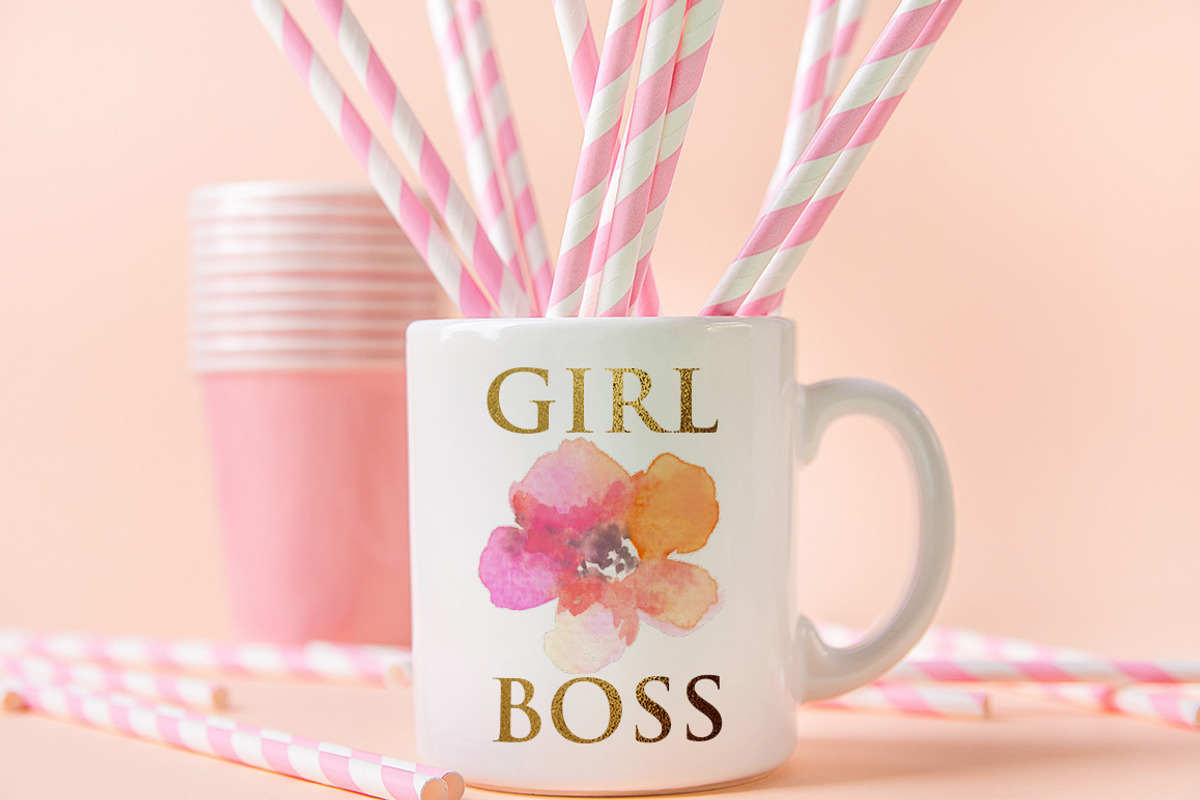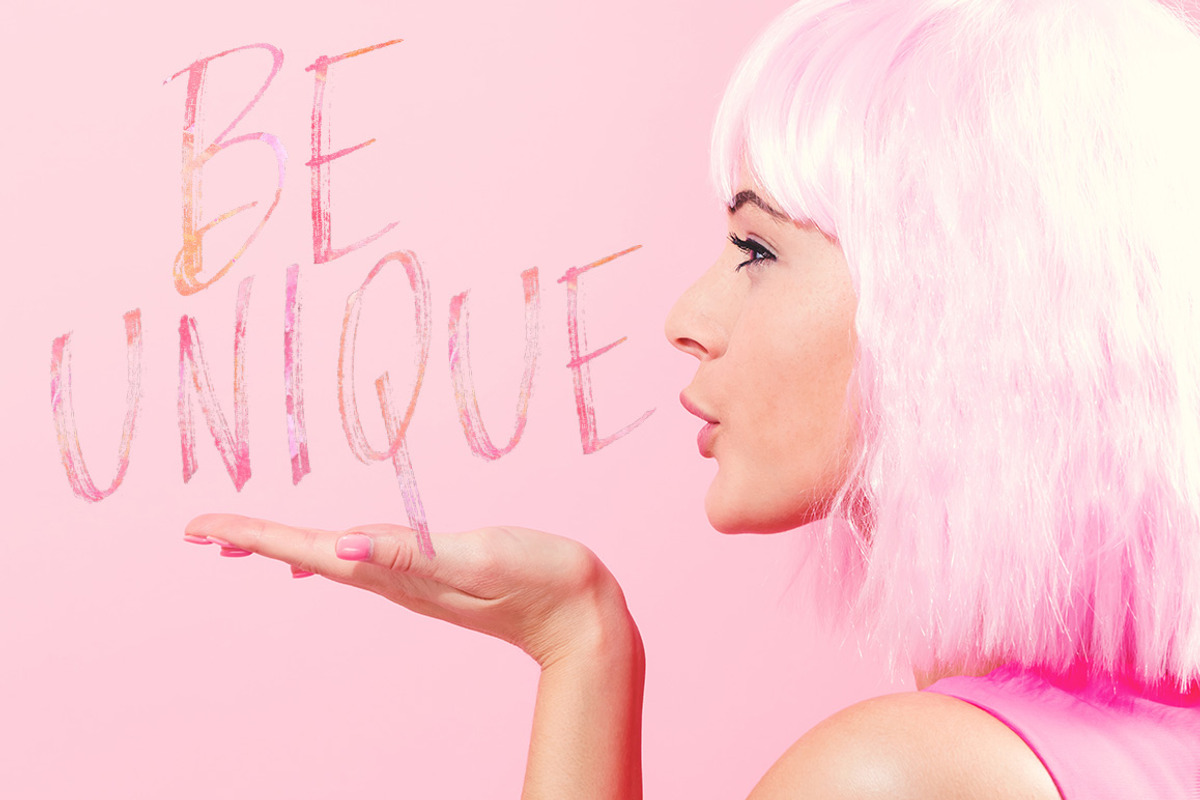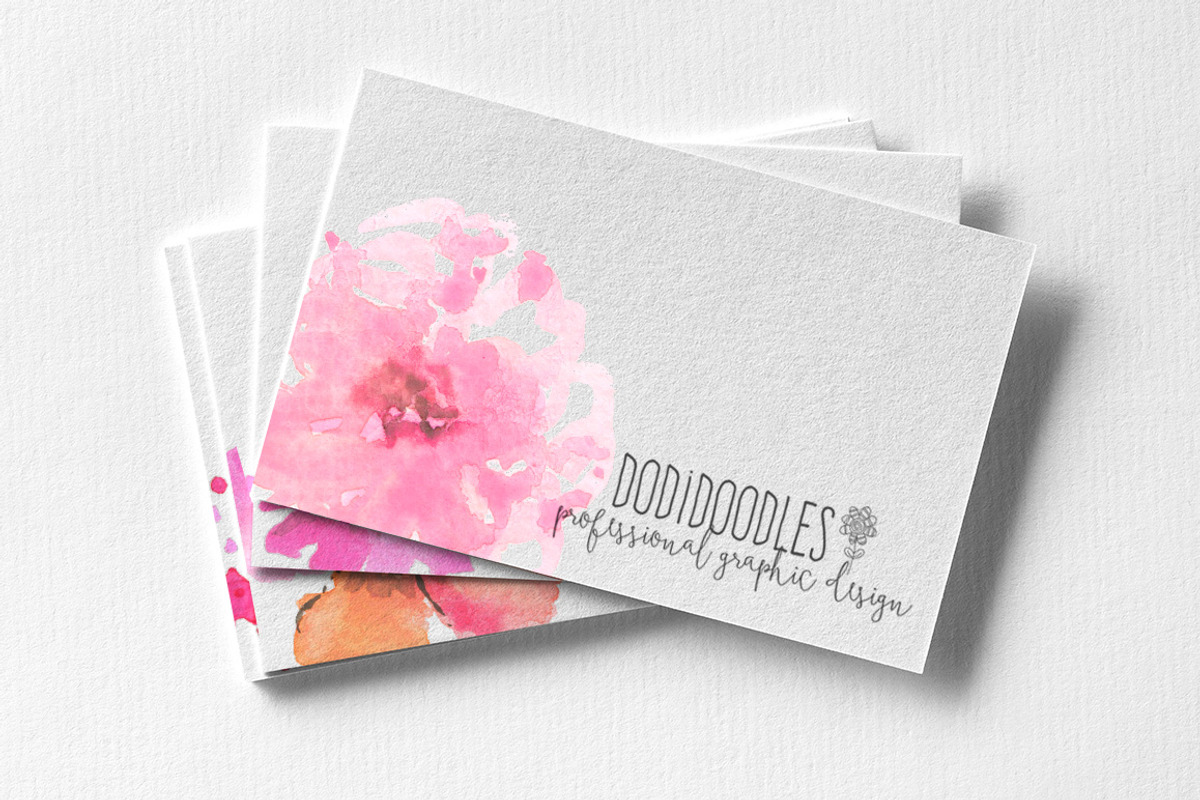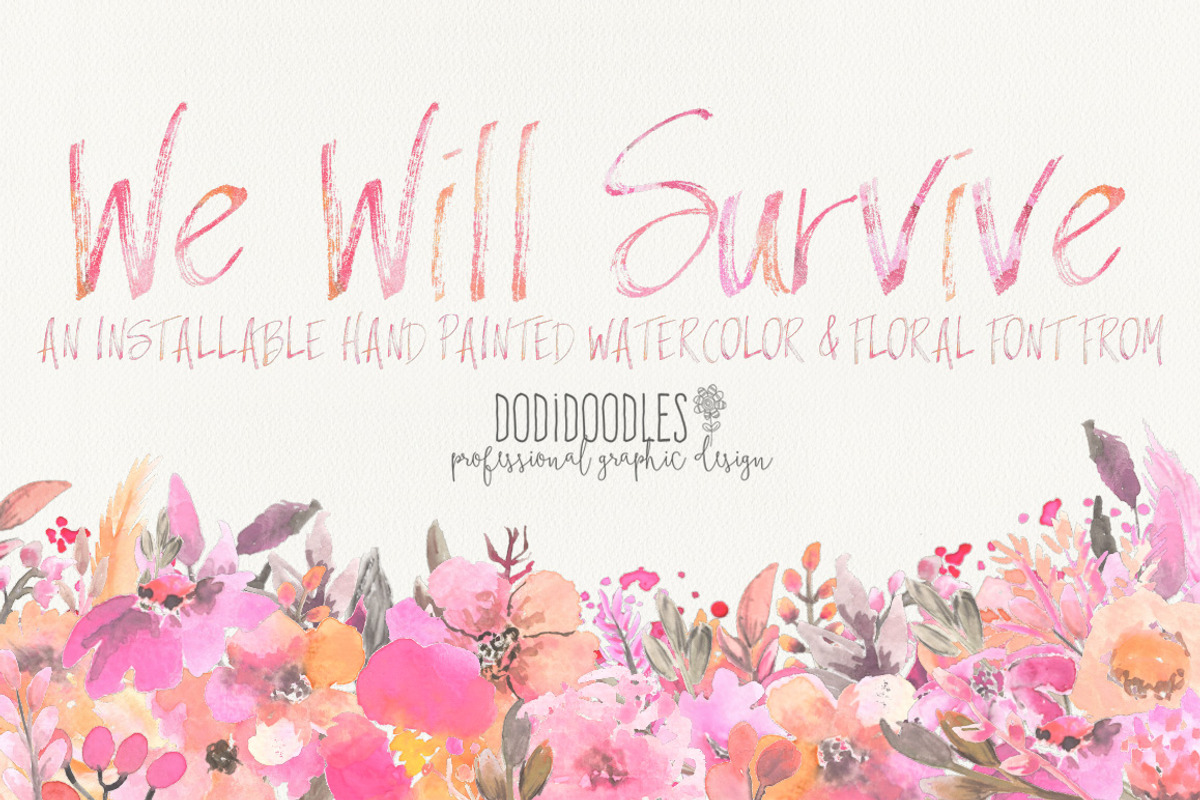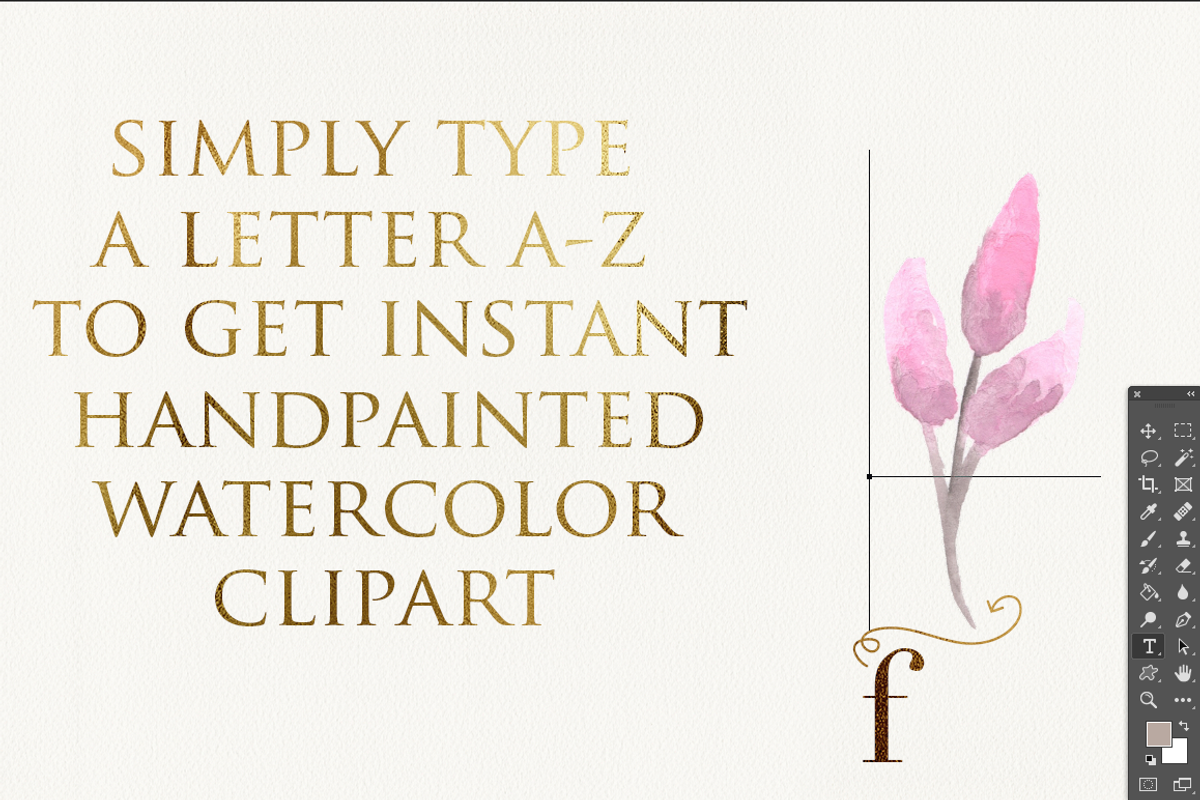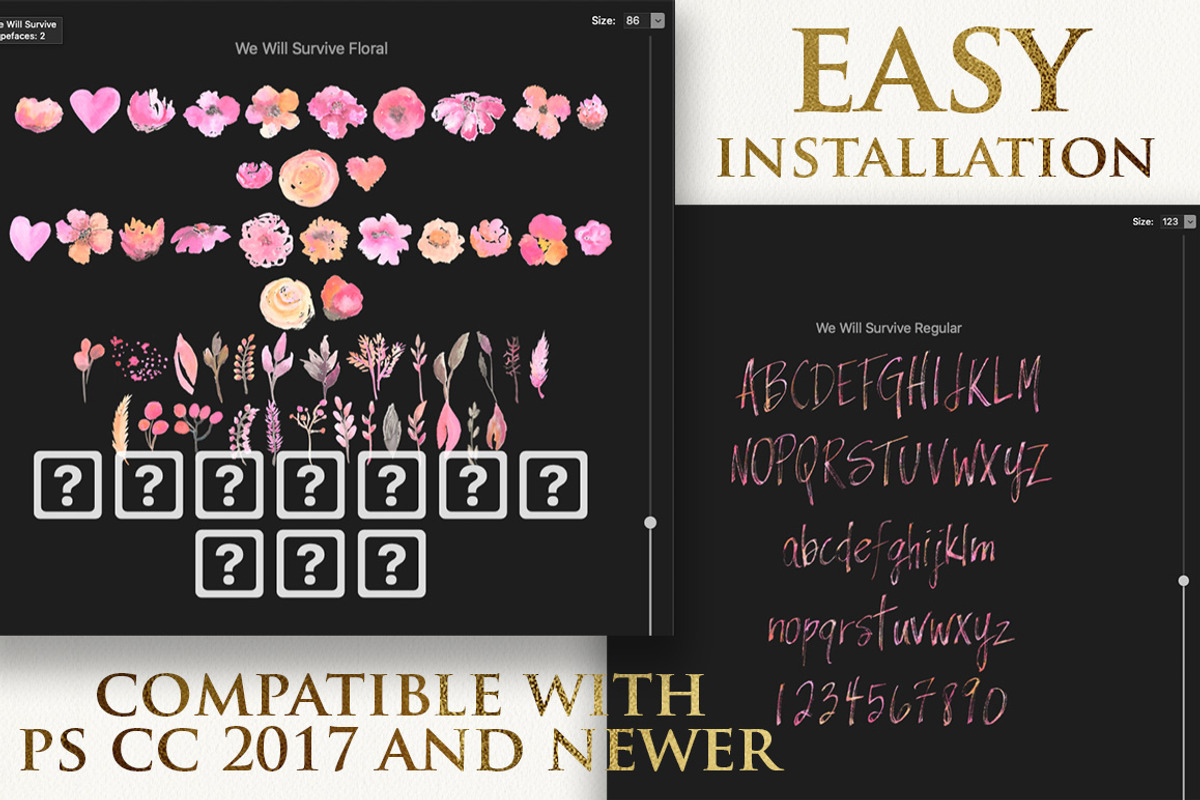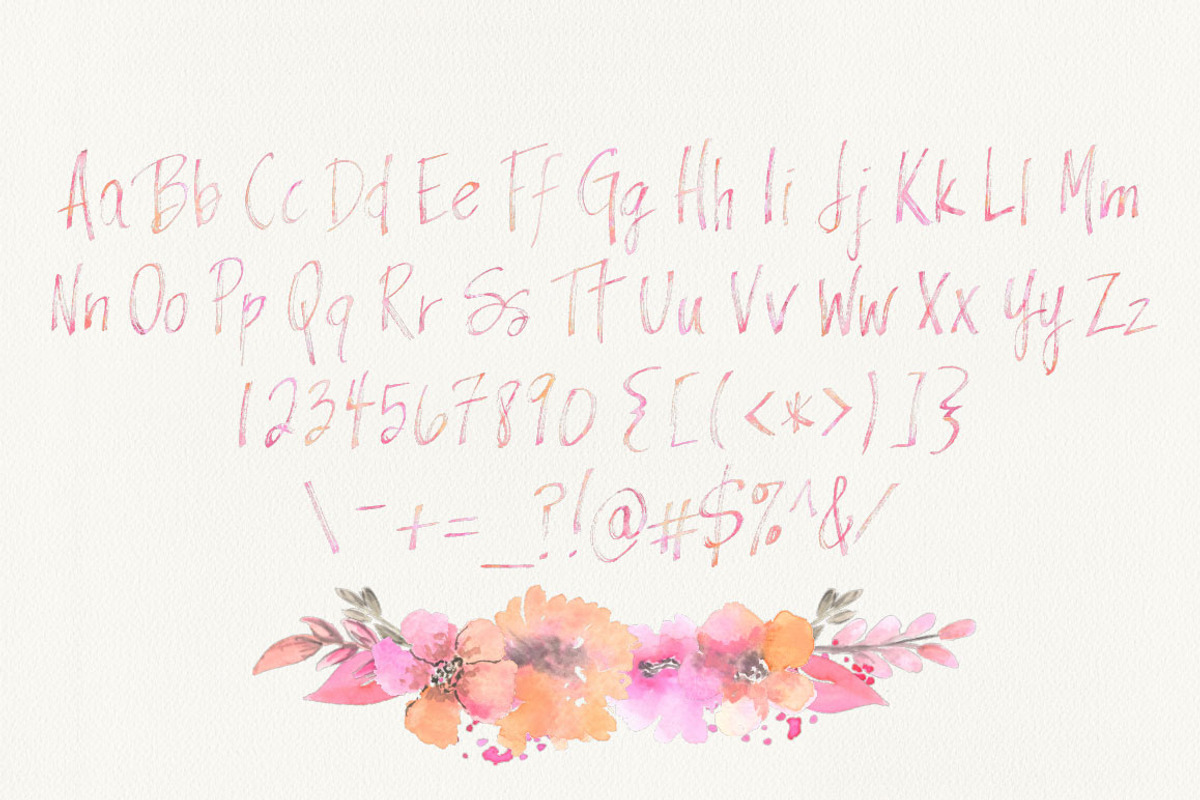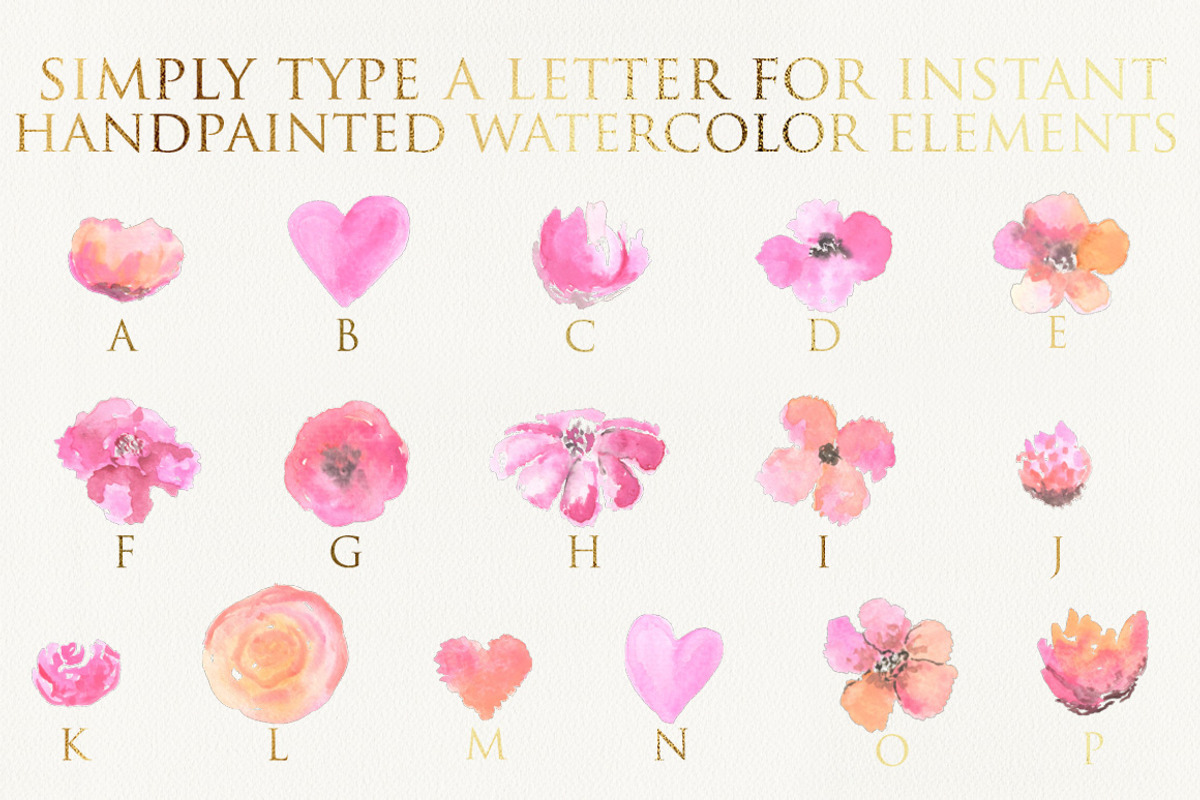
Introducing WE WILL SURVIVE, an installable hand painted watercolor font. It's taken 3 years, but I'm SO excited to release my second fully installable watercolor font! With the proper software, you can not only type in watercolor, you can type my hand painted flowers and elements! As before, every letter, every element, was hand painted on paper by me-and then carefully scanned, cleaned up, and transferred into software that allows you to type in color!! This allows you to create digital pieces that have a truly authentic look! The only difference is that this time you will receive both an uppercase AND lowercase set of letters PLUS an uppercase and lowercase set of florals and elements!!! That's a full watercolor font plus 52 one key stroke elements.
With your purchase you will receive both WE WILL SURVIVE and WE WILL SURVIVE FLORAL. WE WILL SURVIVE is a dry brush pink and orange watercolor font with punctuation. WE WILL SURVIVE FLORAL is a 52 piece set of coordinating watercolor elements to WE WILL SURVIVE. Simply unzip the file, open and install through Font Book (or similar app) and open in PS. You can then start creating with both the font and the elements. You can resize and position the elements after typing to create your own unique piece. Due to the nature of the coding, the hand painted pieces will not lose their quality when enlarged. This is an amazing technology for people who don't have the time to paint, or don't like dragging and dropping PNG or EPS files.
- The only difference is that this time you will receive both an uppercase AND lowercase set of letters PLUS an uppercase and lowercase set of
- WE WILL SURVIVE is a dry brush pink and orange watercolor font with punctuation.